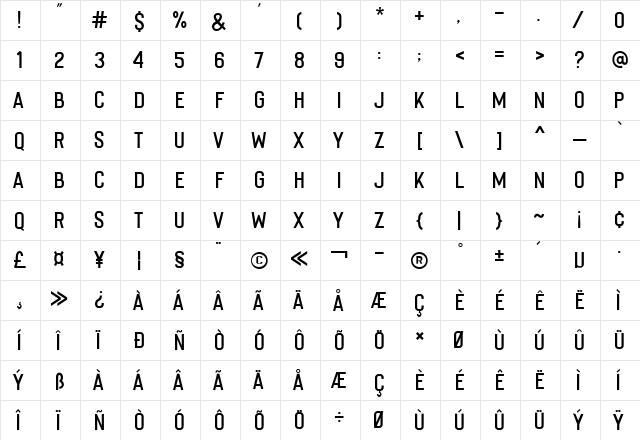
Imperfecta Regular Font Preview
Imperfecta Regular Regular
Imperfecta Regular Font Details
| Foundry | 50Fox |
Design Context for Imperfecta Regular Typeface
Imperfecta Regular takes a measured approach to typography — its balanced proportions and neutral character make it a reliable workhorse for both digital and print work.